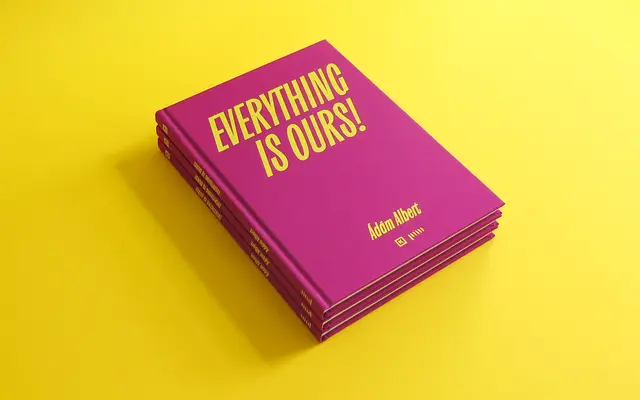
Supergravity
Hungarumlaut · Adam Katyi · 2020
A tightly condensed display face drawn from early 20th-century Hungarian poster lettering, with three upright and slanted cuts designed for close-set titling.
Originally commissioned for Adam Albert's 2018 exhibition and accompanying book, it takes letter shapes from old Hungarian posters and rebuilds them as a cohesive family. The letters are sharply condensed with moderate contrast; diagonal characters such as A and W carry angled rather than horizontal terminals. Descenders are kept extremely short for tight leading, and the 19-degree slant of the oblique cuts references the exhibition's May Day 1919 theme.
A heavily condensed display face with moderate stroke contrast and distinctive angled terminals, drawn from early 20th-century Hungarian poster lettering rather than any conventional text tradition.